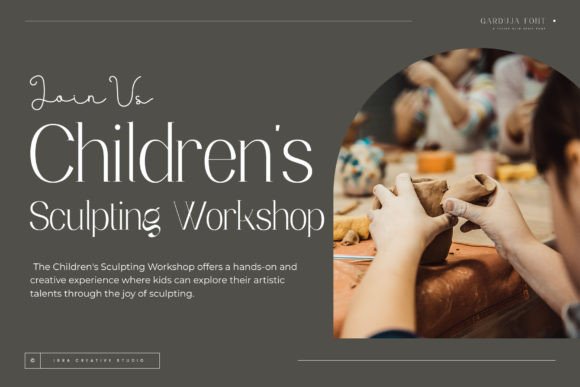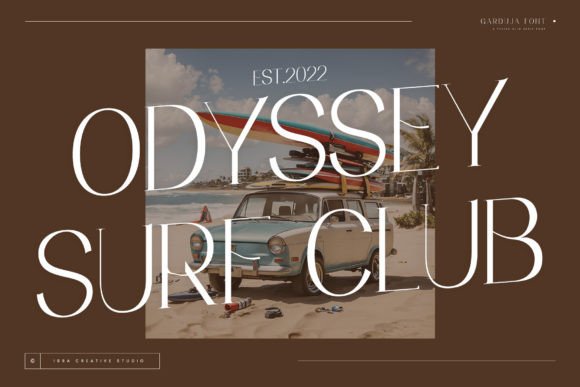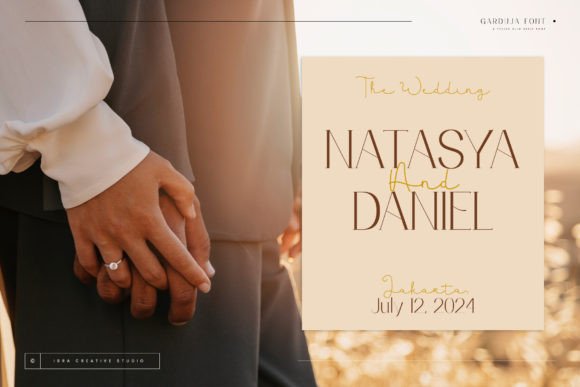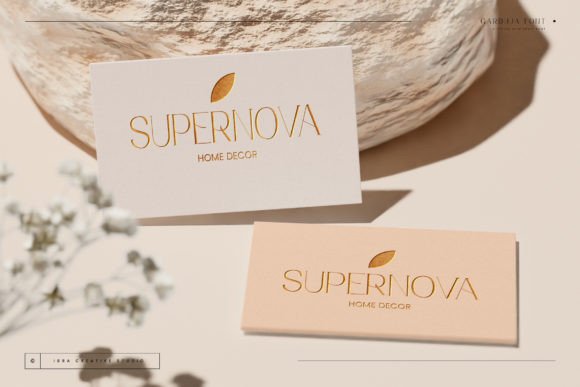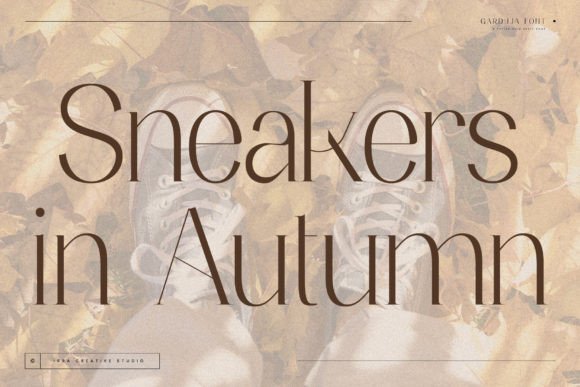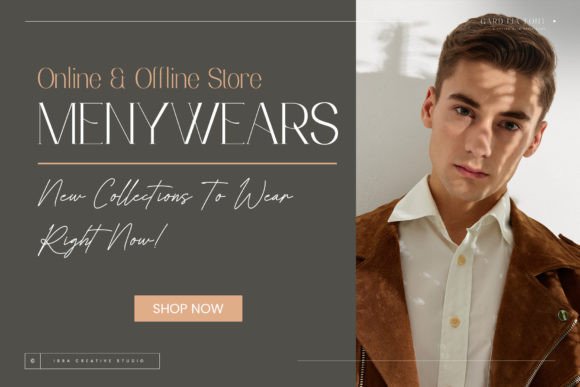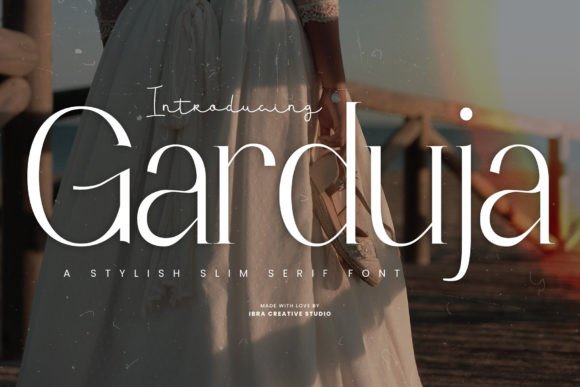
Garduja Font: Elevate Your Designs with Sophistication and Modern Aesthetics
In the world of typography, few fonts manage to strike the perfect balance between elegance and modernity. Garduja, a stylish slim serif font, is one such typographic masterpiece that effortlessly blends sophistication with contemporary aesthetics. Its slender and refined letterforms exude a timeless elegance, while subtle serifs add a touch of classic charm, making it an ideal choice for designers and crafters seeking a polished and modern design.
The Art of Garduja: A Perfect Blend of Style and Substance
Garduja’s design is a testament to the power of typography in enhancing visual communication. Its slim serif structure gives it a sleek and modern appearance, perfect for projects that demand a touch of sophistication. The font’s refined letterforms are carefully crafted to provide excellent readability, making it suitable for a wide range of applications, from luxury branding to editorial design.
Key Features of Garduja Font
- Slim Serif Structure: Garduja’s slender serifs give it a distinctive and elegant appearance, setting it apart from other fonts.
- Refined Letterforms: The font’s carefully crafted letterforms ensure excellent readability and a touch of sophistication.
- Subtle Serifs: The subtle serifs add a touch of classic charm, making Garduja perfect for projects that demand a blend of modernity and tradition.
- Timeless Elegance: Garduja’s design ensures that it remains relevant and stylish, even as design trends evolve.
Why Choose Garduja for Your Design Projects?
Garduja is more than just a font; it’s a design statement. Its unique blend of style and substance makes it an ideal choice for designers and crafters seeking to elevate their projects. Here are a few reasons why Garduja stands out:
- Versatility: Garduja’s versatility makes it suitable for a wide range of applications, from luxury branding and editorial design to packaging and digital interfaces.
- Readability: The font’s refined letterforms ensure excellent readability, making it perfect for body text and headlines.
- Aesthetic Appeal: Garduja’s slim serif structure and subtle serifs give it a distinctive and elegant appearance that adds a touch of sophistication to any design.
Using Garduja in Different Design Contexts
Garduja’s versatility makes it suitable for various design contexts. Here are a few examples of how you can use Garduja to enhance your designs:
- Luxury Branding: Use Garduja to create a sophisticated and elegant brand identity that stands out in the market.
- Editorial Design: Garduja’s excellent readability and aesthetic appeal make it perfect for use in magazines, newspapers, and digital publications.
- Packaging Design: Add a touch of elegance to your packaging designs with Garduja’s slim serif structure and refined letterforms.
- Digital Interfaces: Use Garduja to create visually appealing and user-friendly digital interfaces that elevate the user experience.
Tips for Getting the Most Out of Garduja
To maximize the impact of Garduja in your designs, consider the following tips:
- Pair with Complementary Fonts: Experiment with pairing Garduja with complementary fonts to create visual interest and hierarchy in your designs.
- Adjust Font Sizes: Adjust font sizes to create a clear visual hierarchy and ensure that your designs are easy to read.
- Use Color Effectively: Use color effectively to enhance the aesthetic appeal of Garduja and make your designs stand out.
| Author | ibracreative |
Garduja font is a stylish slim serif font that effortlessly blends sophistication with modern aesthetics. Its slender and refined letterforms exude a timeless elegance, while subtle serifs add a touch of classic charm. With its excellent readability and aesthetic appeal, Garduja is an ideal choice for designers and crafters seeking to elevate their projects. Whether you’re working on luxury branding, editorial design, packaging, or digital interfaces, Garduja is sure to make a lasting impression.